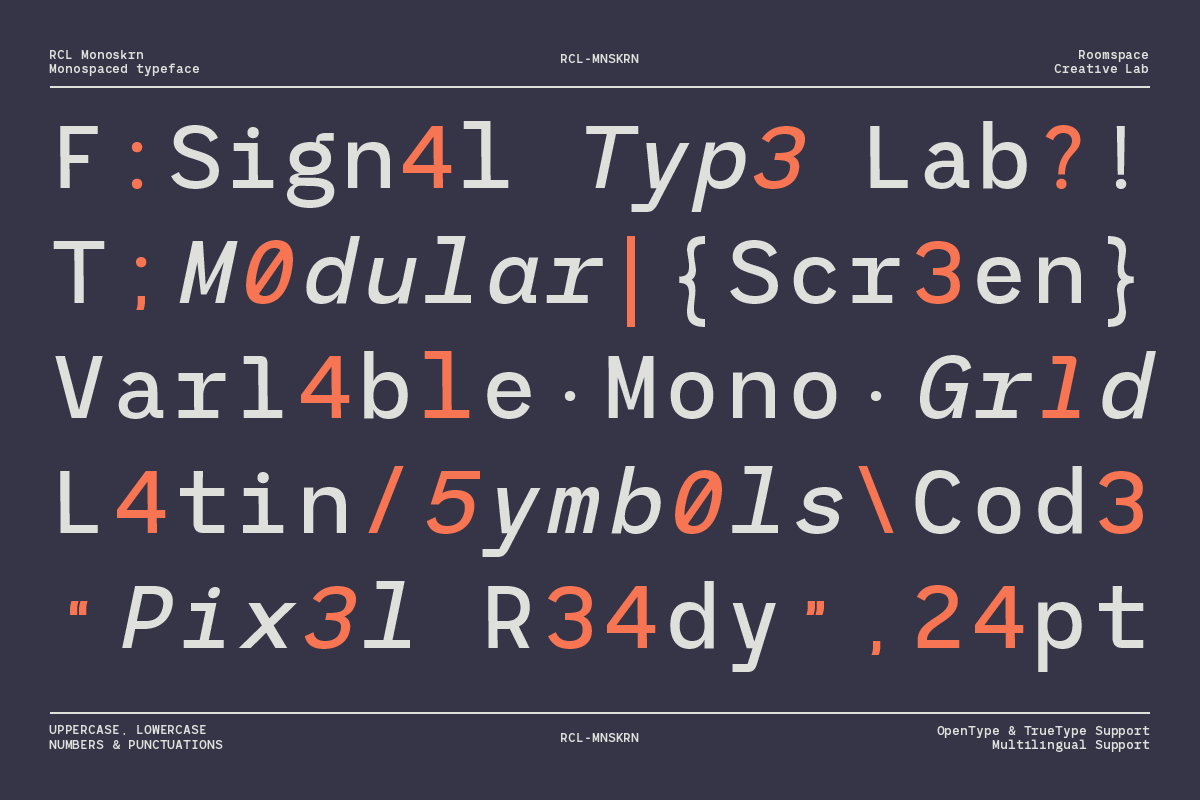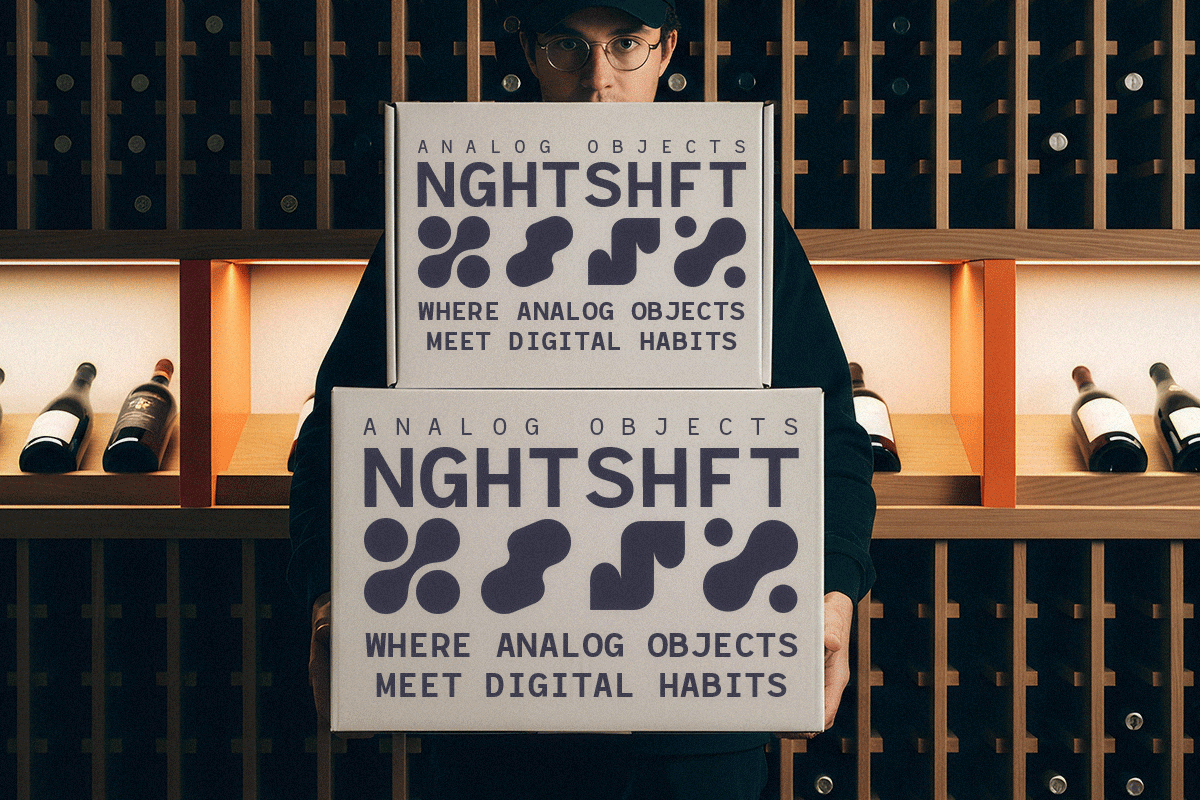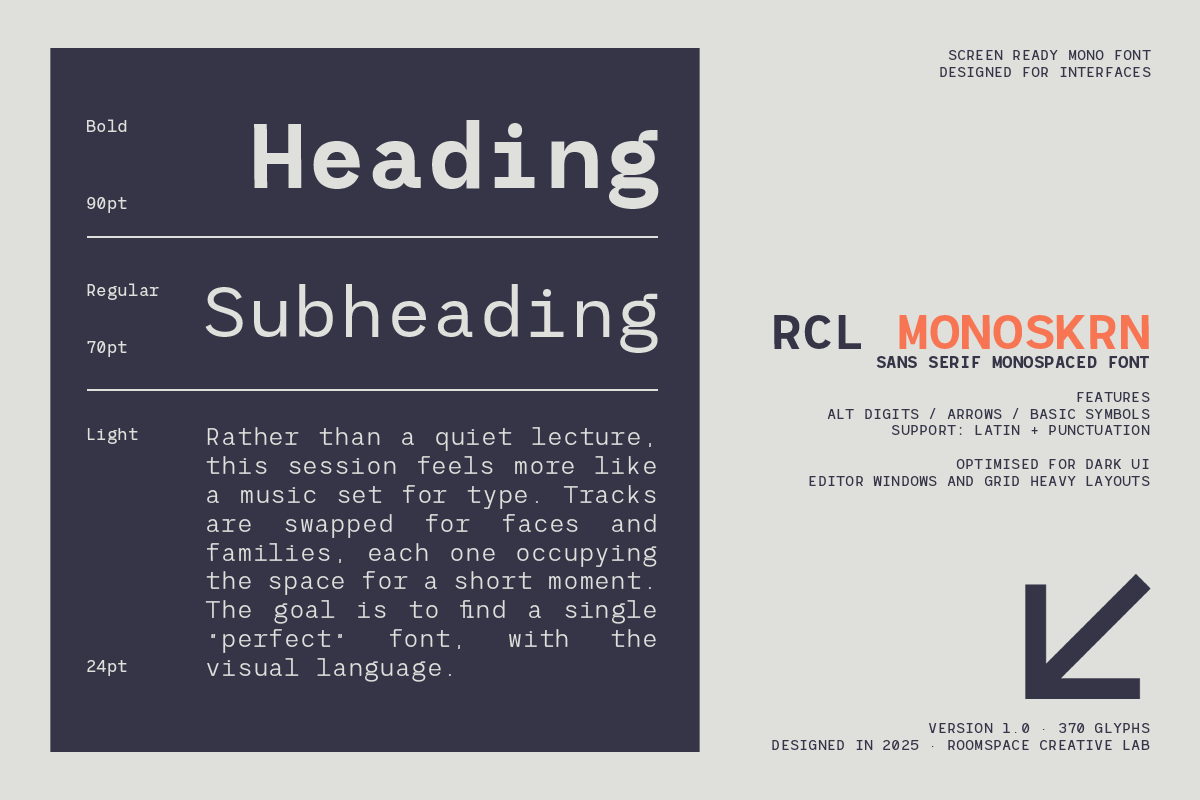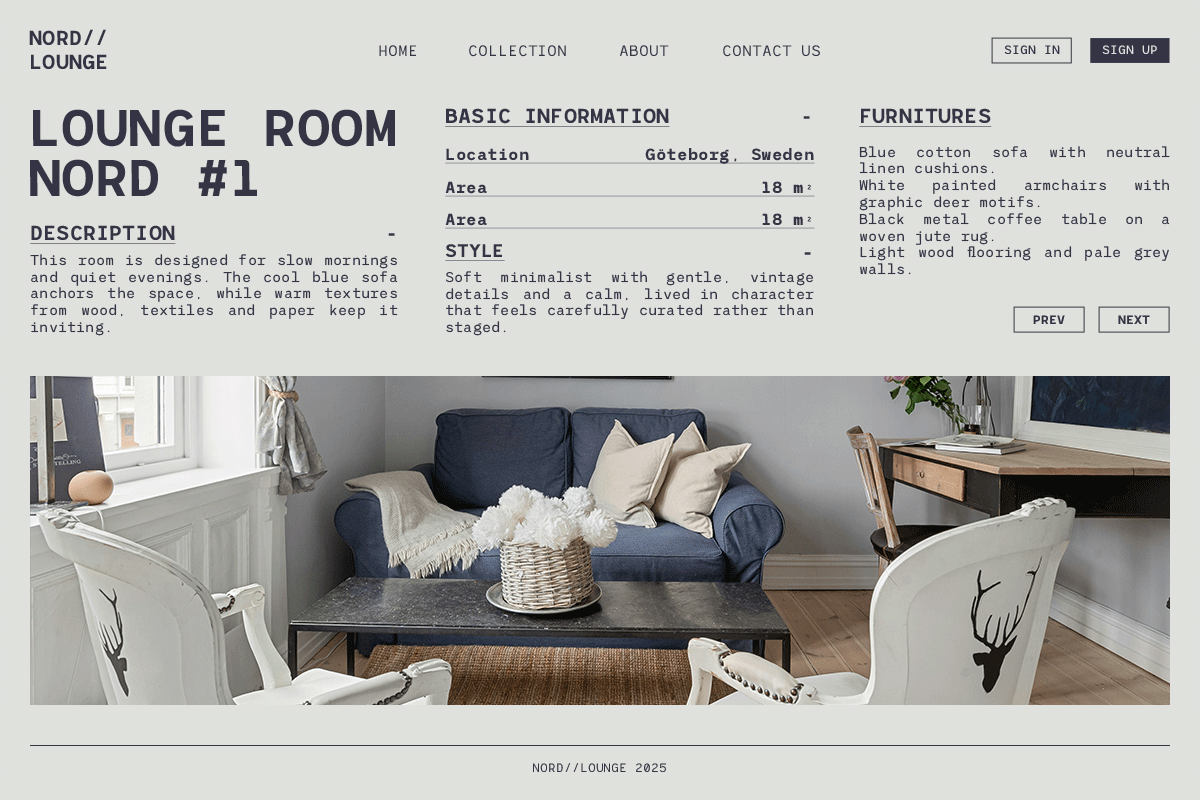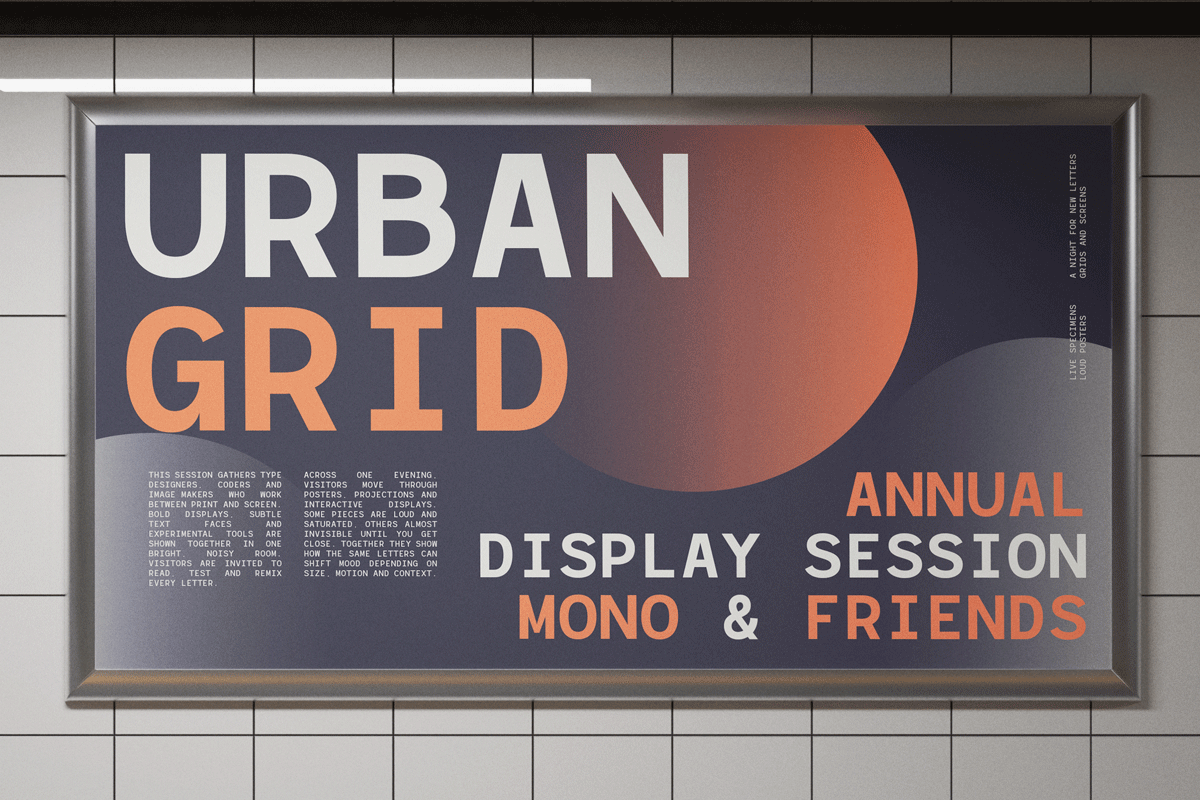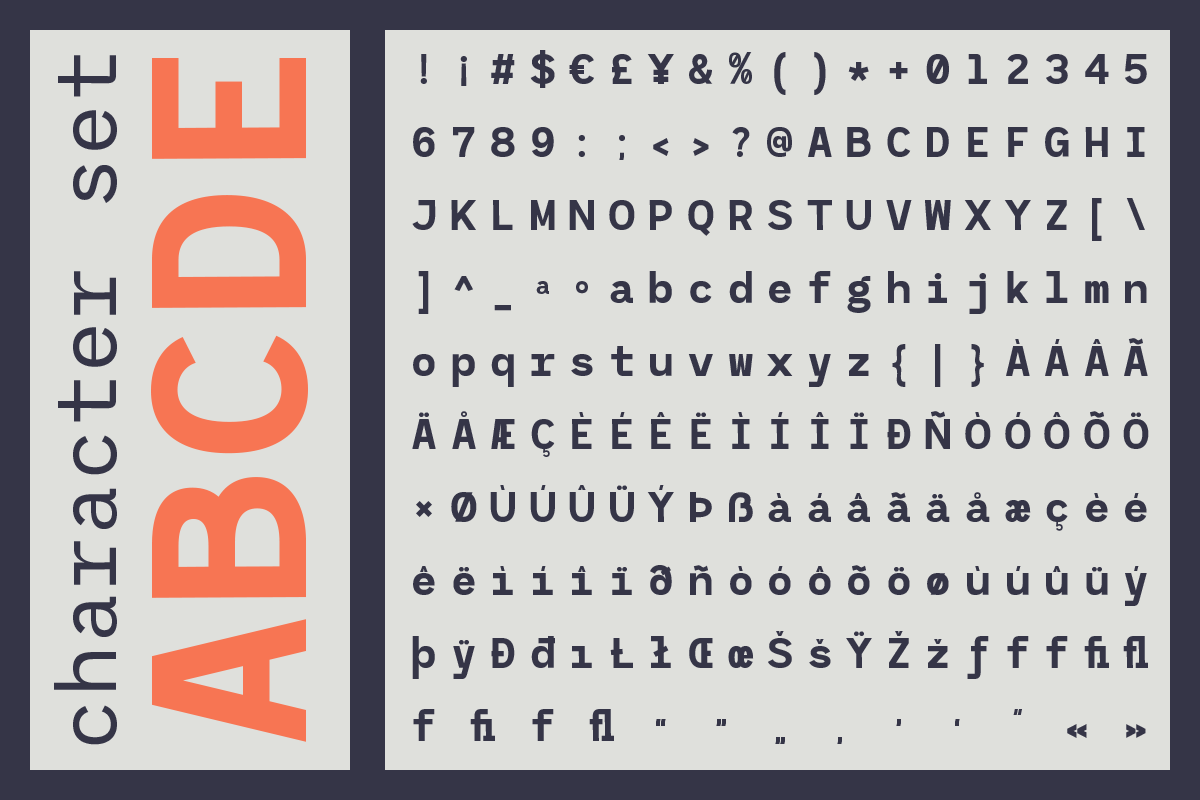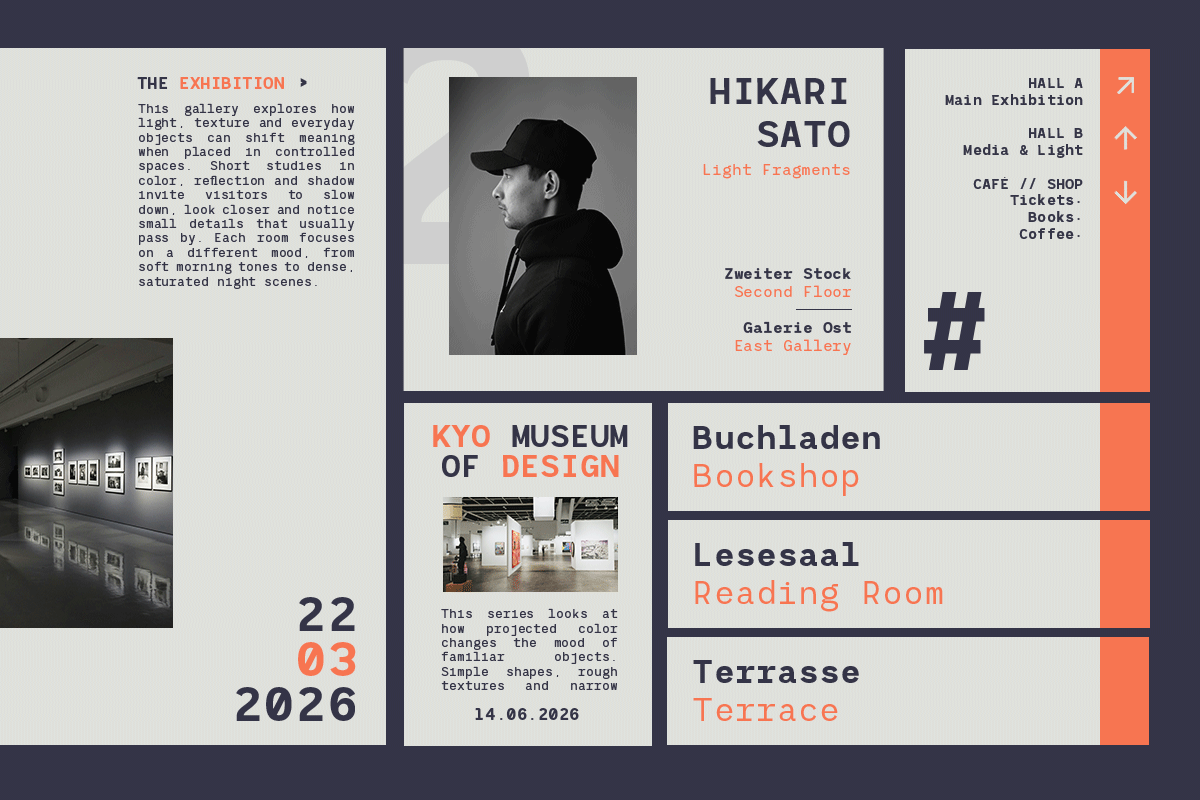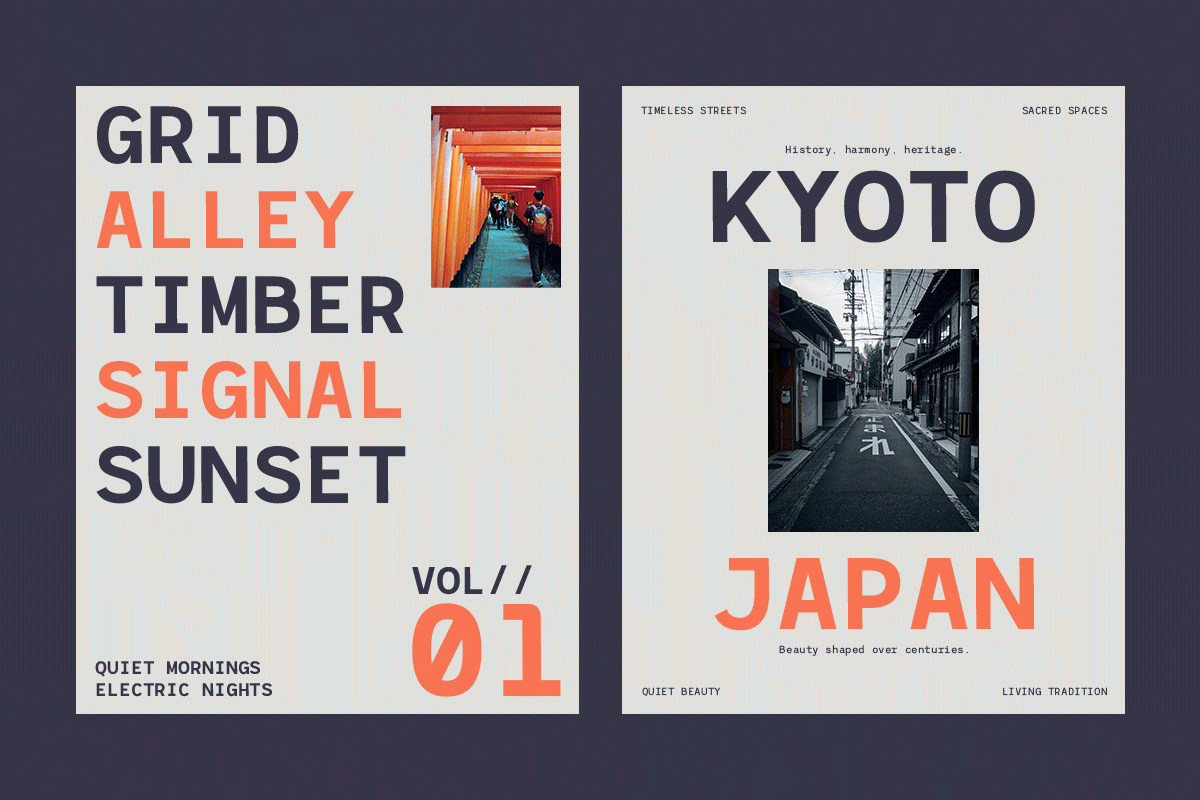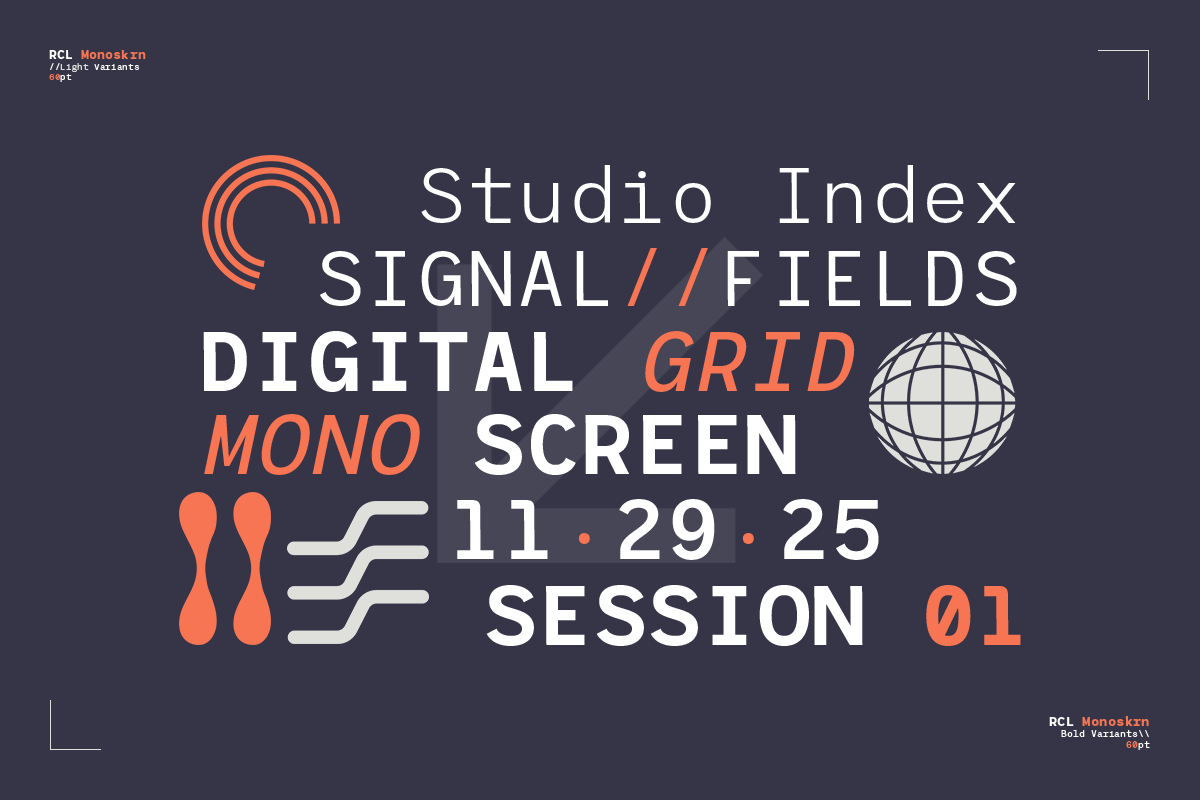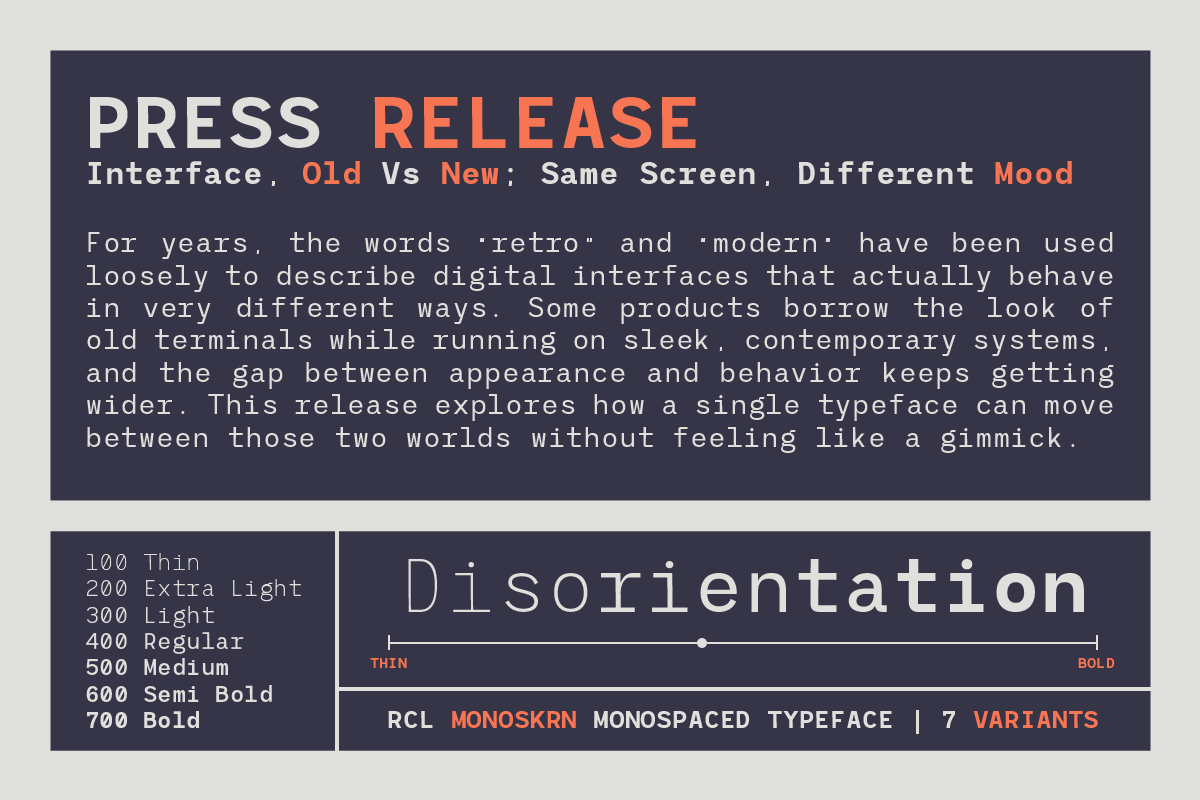
RCL Monoskrn – A Modern Monospaced
RCL Monoskrn is a modern sans-serif with monospaced heritage precise, structured, and engineered. It blends coding-inspired rhythm with proportional sans clarity, making it reliable for branding, UI, editorial, and identity systems.RCL Monoskrn is a modern monospaced-inspired sans serif designed for clarity and technical precision. It brings the structured spirit of coding fonts into a proportional sans system making it highly usable for branding, interfaces, and editorial layouts. With 14 functional variants, Monoskrn balances monospaced character width logic with smooth proportional spacing for improved readability.
- 14 variants included
- Monospaced-inspired sans serif
Perfect For : Tech branding, dashboards, UI/UX, product design, editorial layouts, software graphics